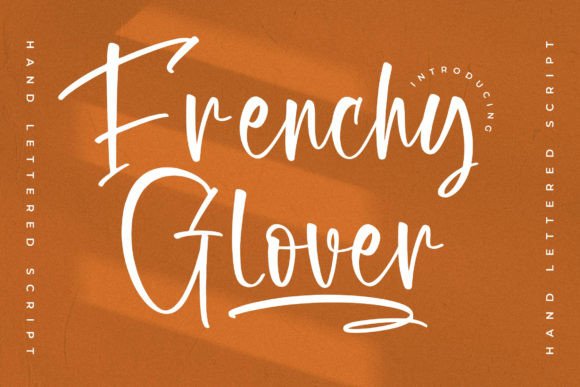
Discover the Elegance of Frenchy Glover Font: Elevate Your Designs with a Touch of Sophistication
In the world of typography, few fonts manage to strike a balance between classic elegance and modern flair. Frenchy Glover Font is one such exquisite handwritten font that has captured the hearts of designers and crafters alike. With its masterful blend of classy calligraphic influences and contemporary freshness, Frenchy Glover is poised to become your new favorite font for elevating projects to the highest levels of sophistication.
The Essence of Frenchy Glover Font
Frenchy Glover Font is a beautifully crafted handwritten typeface that exudes elegance and refinement. Its design is characterized by flowing lines, delicate strokes, and a sense of fluidity that gives it a distinctly calligraphic feel. Yet, despite its roots in traditional calligraphy, Frenchy Glover also boasts a modern freshness that makes it incredibly versatile for a wide range of design applications.
Why Fall in Love with Frenchy Glover?
There are many reasons why Frenchy Glover Font quickly becomes a favorite among designers and crafters:
- Classy Calligraphic Influences: Frenchy Glover’s design is deeply rooted in calligraphy, offering a level of sophistication and elegance that is hard to match. Its classy influences make it perfect for projects that demand a high level of refinement.
- Contemporary and Fresh: While it maintains a strong connection to traditional calligraphy, Frenchy Glover also feels remarkably contemporary. This blend of old and new ensures that your designs are both timeless and current.
- Versatility: Whether you’re working on a wedding invitation, a branding project, a fashion magazine, or any other design endeavor, Frenchy Glover adapts seamlessly. Its versatility is one of its most compelling attributes, making it suitable for a myriad of creative projects.
Bring Your Projects to New Heights with Frenchy Glover
Incorporating Frenchy Glover Font into your designs can dramatically elevate the quality and aesthetic appeal of your projects. Here are a few ways you can leverage this beautiful font:
- Wedding and Event Stationery: Add a touch of romance and sophistication to wedding invitations, save the dates, and other event materials with Frenchy Glover’s elegant script.
- Branding and Packaging: Use Frenchy Glover to create luxurious brand identities and packaging solutions that stand out. Its unique charm can help convey a brand’s premium and sophisticated image.
- Fashion and Beauty: Perfect for fashion and beauty brands, Frenchy Glover can add a stylish and high-end feel to product names, taglines, and marketing materials.
- Digital Content: Elevate your digital content, including blog headers, social media graphics, and email newsletters, with a font that commands attention and exudes professionalism.
Frenchy Glover Font is more than just a typeface; it’s a design statement. With its exquisite blend of traditional calligraphy and modern aesthetics, it offers a unique opportunity to infuse your projects with elegance and sophistication. Whether you’re a professional designer or a crafter working on personal projects, Frenchy Glover is sure to become an indispensable part of your creative toolkit. So, fall in love with Frenchy Glover and discover a world of design possibilities that are as limitless as your imagination.
Embrace Frenchy Glover Font today and transform your designs with a touch of class and a dash of contemporary flair. Your next masterpiece is just a font away.